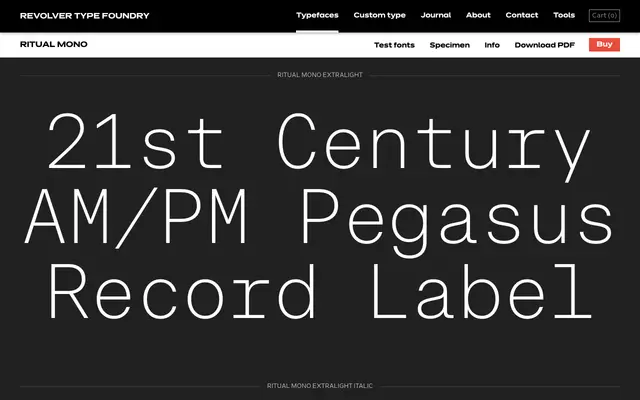
A six-weight monospaced family with matching italics, suited to technical and editorial applications where fixed-width rhythm is required.
Ritual Mono spans six weights from Extralight to Bold, each with a corresponding italic, giving designers a full tonal range within a fixed-width structure. The specimen copy nods to typewriter history and interface contexts, suggesting a typeface comfortable in both print editorial and screen-based UI work. The naming and aesthetic point toward a considered, contemporary mono rather than a utilitarian coding face.
Ritual Mono is a monospaced typeface with a consistent fixed-width structure across all weights, placing it squarely in the mono category with no stylistic deviation toward display or slab treatments.